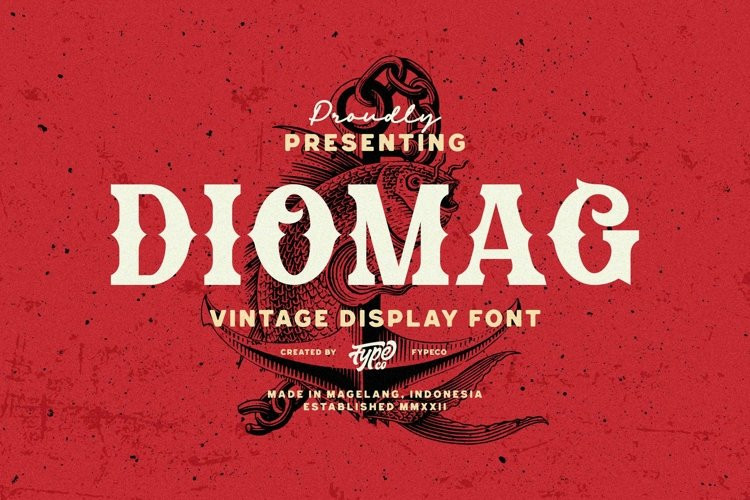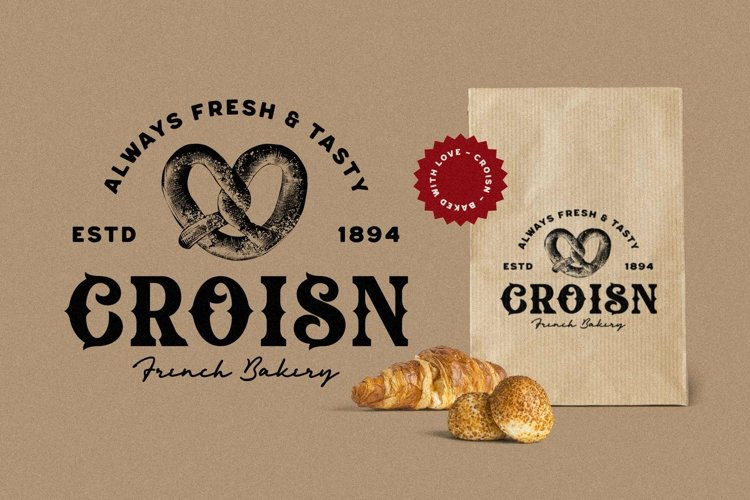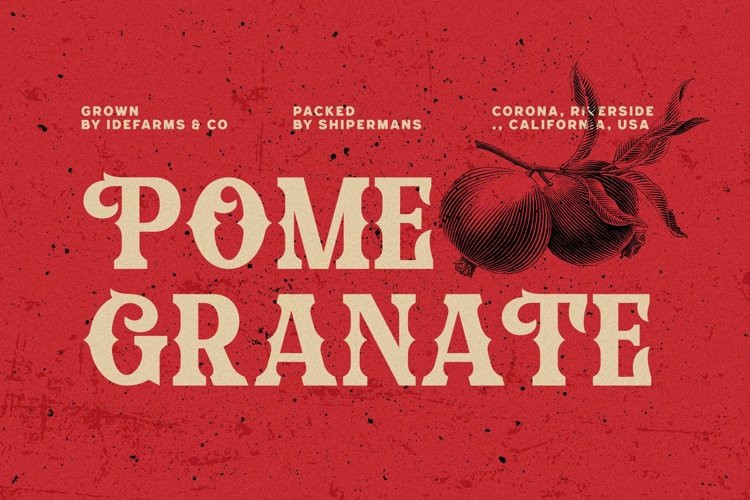
Diomag Font
Diomag FontDiomag is a vintage display font inspired by classic labels. Diomag comes with uppercase, lowercase, numerals, punctuations and so many variations on each characters include alternates, common ligatures to let you customize your designs. Perfect to use for logotype, letterhead, label and etc.